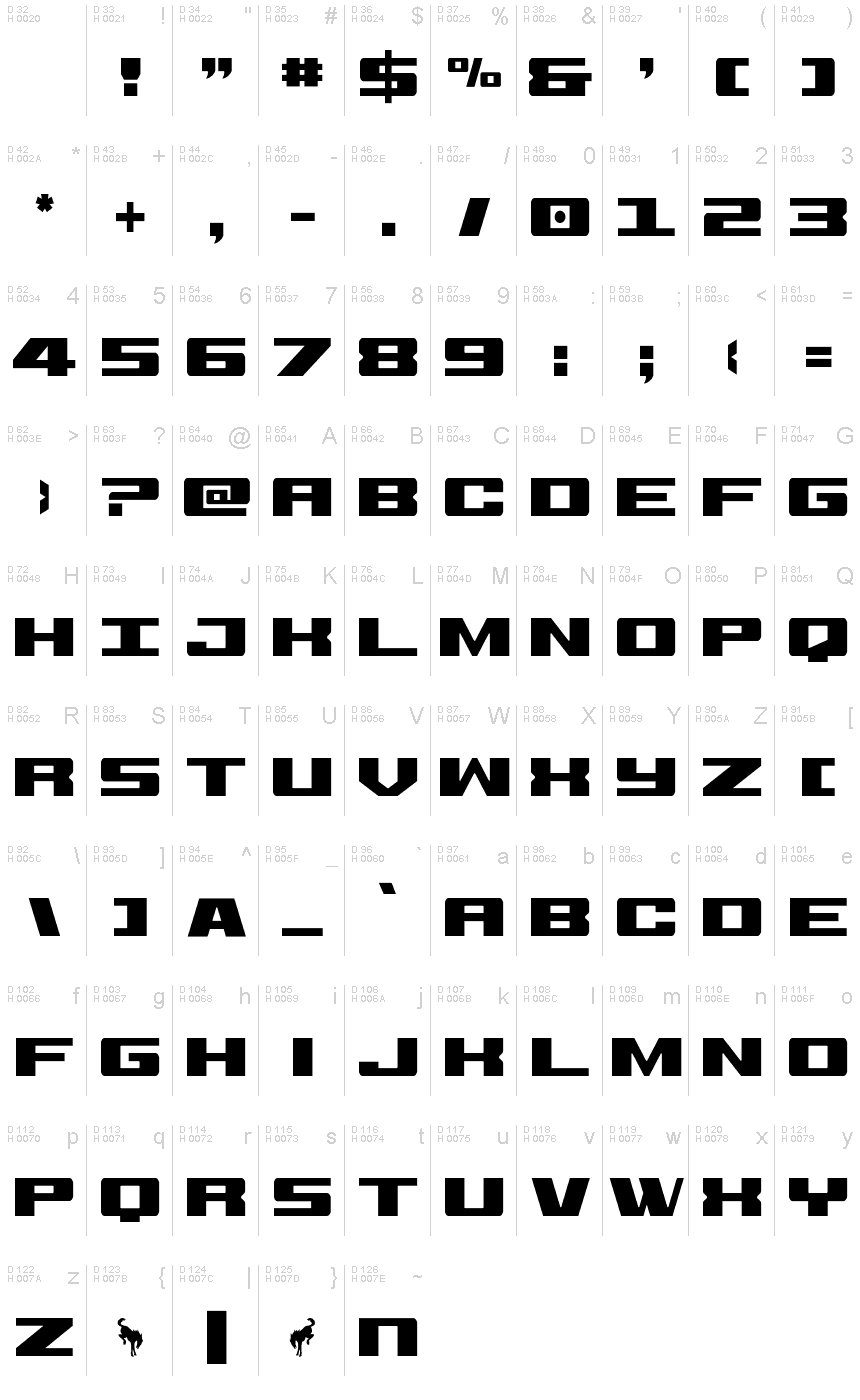
Buckin' Bronc Spaced Condensed
Buckin' Bronc Spaced Condensed leaps off the page with its assertive, techno flair—a standout member of the Buckin' Bronc family crafted by Iconian Fonts. This extra-bold, extra-expanded display typeface is a true workhorse for designers aiming to make an immediate impression. Its tightly packed letters exude a mechanical strength and futuristic vibe that are perfect for projects demanding attention, from high-energy advertisements to bold headers on digital platforms.
The font's distinct character lies in its unique blend of industrial precision and modern style. Whether you're looking to inject a sense of dynamism into your brand or seeking an unmissable font for event promotions, Buckin' Bronc Spaced Condensed is engineered to deliver maximum impact where it counts.